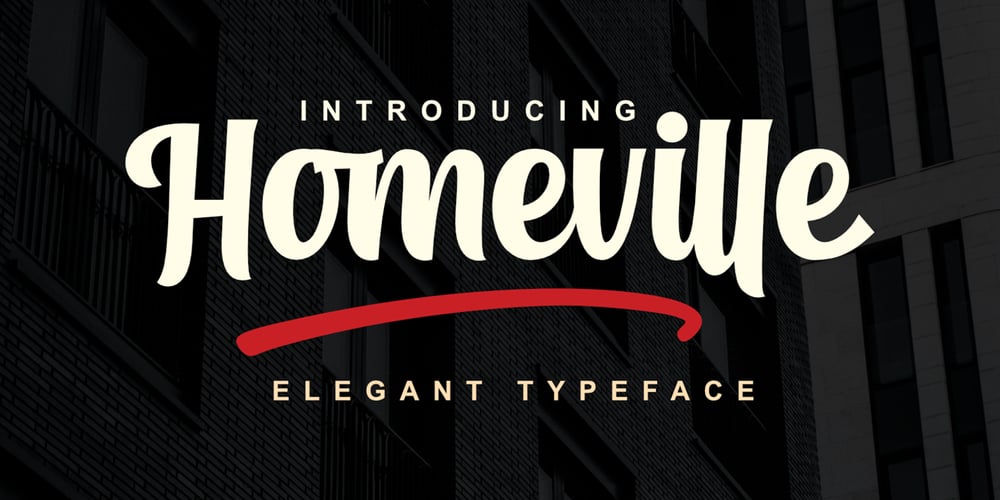
Homeville Font Family was designed by Toni Dzulham and published by Dumadi. Homeville contains 1 styles and family package options. Homeville – Elegant Typeface is a font amazing this year. a font that will shake things up in the design world. Distinctive fonts and complemented by alternative styles will enhance your project.Homeville is perfect for design, logos, social media, branding, advertising, product design, handwritten quotes, product packaging, headers, posters, merchandise, and other designs.What’s Included :+ Homeville+ Standard glyphs+ Style Alternate+ SWSH+ Ligature+ Multilingual Accent+ Works on PC & Mac, Simple installationsAccessible in Adobe Illustrator, Adobe Photoshop, Adobe InDesign, even work on Microsoft Word. PUA Encoded Characters – Fully accessible without additional design software. Fonts include multilingual support+ Image used: All photographs/pictures/vectors used in the preview are not included, they are intended for illustration purposes only.Thanks